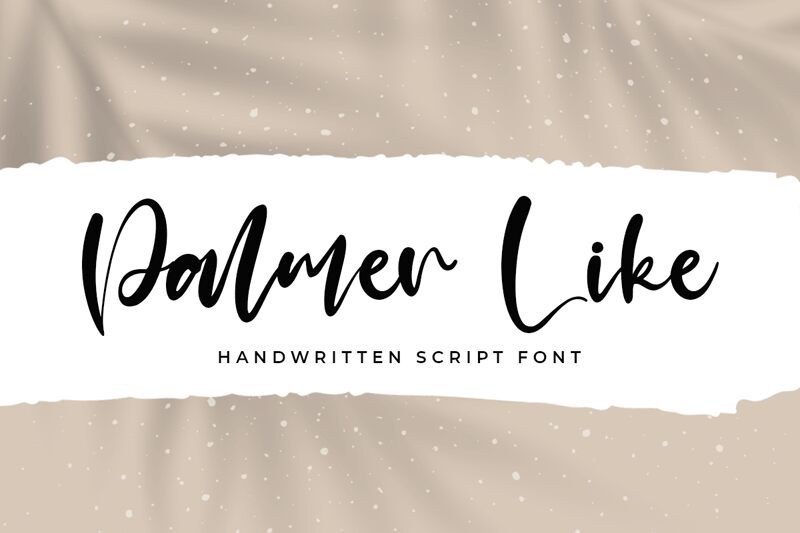
Palmer Like
Palmer Like, designed by Kong Font, is a charming and delicate handwritten font. With its semi-light weight, it exudes an elegant and sophisticated vibe.
This font is perfect for wedding invitations, love letters, and romantic-themed projects. Its graceful curves and flowing strokes add a touch of whimsy to any design. Palmer Like brings warmth and personality to branding materials, such as logos or packaging for boutique products. Additionally, it can elevate fashion magazines or editorial layouts with its unique handwritten charm.
Let Palmer Like be your go-to font for adding a touch of elegance to your creative endeavors.